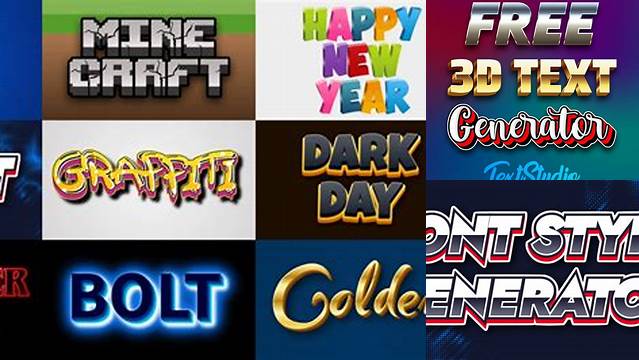
Free Logo Font Style Generator: Create Your Brand's Font
Creating a memorable and impactful logo is crucial for any brand. The font you choose plays a significant role in conveying your brand's personality and message. Fortunately, there are numerous free logo font style generators available online that can help you experiment with different typography options and find the perfect font for your logo. In this article, we will explore the world of logo font style generators, discuss their benefits, and guide you on how to use them effectively to create a stunning logo. So, let's dive in and discover how you can craft a unique visual identity for your brand using these amazing tools!
Understanding the Importance of Font Choice in Logo Design
Choosing the right font is absolutely critical when you're crafting a logo because it's way more than just picking something that looks cool, guys. Think of your logo as the face of your brand – it's often the first thing people see and the impression it makes can stick for a long time. The font you select is a major part of that first impression. Different fonts can evoke totally different feelings and associations. A bold, sturdy font can suggest strength and reliability, while a sleek, modern font might give off a vibe of innovation and sophistication. A playful, handwritten font can make your brand seem approachable and friendly. The font needs to align with your brand's personality, values, and the overall message you're trying to send.
Imagine, for instance, a financial firm using a whimsical, cartoonish font – it just wouldn't inspire confidence, would it? Or a children's toy brand using a stern, formal font? It just doesn't fit! When you're picking a font, consider your target audience, the industry you're in, and the kind of image you want to project. It's about creating a visual language that speaks directly to your audience and sets you apart from the competition. Beyond aesthetics, readability is another huge factor. Your logo might look amazing, but if people can't easily read your brand name, it's not doing its job. You need a font that's clear and legible, even at smaller sizes. Think about where your logo will be used – on your website, business cards, social media, merchandise – and make sure your font works well across all those platforms. A logo with a thoughtfully chosen font isn't just visually appealing; it's a powerful tool for building brand recognition and loyalty. It's about making a statement and ensuring that your brand's message resonates with the right people.
Benefits of Using a Logo Font Style Generator
Logo font style generators offer a fantastic array of benefits, especially if you're just starting out or working on a tight budget, guys. One of the biggest advantages is the sheer variety they provide. These generators typically have vast libraries of fonts, ranging from classic and timeless to modern and quirky. This means you can experiment with a ton of different styles and see how they look with your brand name, without having to spend hours searching individual fonts online. It's a huge time-saver!
Another major plus is the ease of use. You don't need to be a graphic design guru to use these tools. Most generators have user-friendly interfaces that allow you to simply type in your brand name, browse through the font options, and see your logo come to life in real-time. You can often adjust things like font size, color, and spacing, giving you a lot of control over the final look. For startups and small businesses, budget is always a concern. Hiring a professional designer can be expensive, and a logo font style generator offers a cost-effective alternative. Many generators have free options or very affordable subscription plans, allowing you to create a professional-looking logo without breaking the bank. This can be a game-changer when you're trying to get your business off the ground. Beyond the cost savings, these generators are excellent for brainstorming and getting creative.
You can try out different combinations of fonts and styles that you might not have thought of otherwise. It's a great way to spark inspiration and explore different directions for your brand identity. Some generators even offer customization options, such as adding design elements or adjusting the kerning (the space between letters) to fine-tune your logo. This level of control can help you create a logo that's truly unique and reflective of your brand. Ultimately, logo font style generators empower you to take control of your brand's visual identity. They provide the tools and resources you need to create a logo that stands out and makes a lasting impression. Whether you're a seasoned designer or a complete beginner, these generators can be a valuable asset in your branding journey. They make the process more accessible, efficient, and fun, helping you to craft a logo that perfectly represents your brand. So, why not give one a try and see what you can create?
Popular Free Logo Font Style Generators
Finding the right logo font style generator can be a bit overwhelming with so many options out there, but don't worry, guys, I've got you covered! There are some fantastic free options available that can help you create a killer logo without spending a dime. Let's dive into a few popular choices and what makes them stand out. First up, we have Canva. Canva is a design platform that's super user-friendly and packed with features. It's not just a logo maker; it's a comprehensive tool for all sorts of design needs. But its logo generator is particularly impressive. It offers a huge selection of fonts, templates, and graphics that you can easily customize to match your brand. You can drag and drop elements, change colors, and experiment with different layouts until you find the perfect look. The free version of Canva is surprisingly robust, offering plenty of resources to get you started. If you need even more features, like premium fonts and graphics, they also have affordable subscription plans.
Next, let's talk about LogoMakr. This generator is specifically designed for logo creation, so it's laser-focused on helping you build a strong brand identity. LogoMakr has a clean and intuitive interface that makes it easy to navigate, even if you're a complete beginner. It boasts a large library of fonts and graphics, and you can even upload your own images to incorporate into your design. One of the cool features of LogoMakr is its ability to create different versions of your logo for various uses, such as website headers or social media profiles. This ensures that your logo looks great across all platforms. Another popular option is DesignEvo. DesignEvo is known for its simplicity and extensive library of over 10,000 templates. You can browse through the templates by category or keyword, making it easy to find a design that aligns with your brand. DesignEvo also offers a wide range of fonts and icons, allowing you to customize your logo to your heart's content.
What's great about DesignEvo is that it provides high-resolution downloads, which is crucial for ensuring your logo looks crisp and clear in both print and digital formats. Then there's Ucraft, which is a website builder that also has a free logo maker tool. Ucraft's logo maker is incredibly easy to use, with a drag-and-drop interface and a wide selection of fonts, icons, and shapes. You can create a simple yet effective logo in just a few minutes. Because Ucraft is primarily a website builder, using its logo maker can be a great first step if you're also planning to create a website for your business. These are just a few of the many free logo font style generators available. Each one has its own strengths and features, so it's worth exploring a few different options to see which one best fits your needs. The key is to have fun experimenting with different fonts and styles until you create a logo that truly represents your brand. Remember, your logo is the face of your business, so make sure it's a good one!
How to Use a Logo Font Style Generator Effectively
Using a logo font style generator effectively is all about maximizing its potential while keeping your brand's identity in mind, guys. It's not just about picking the first font that looks cool; it's about crafting a logo that resonates with your target audience and represents your brand values. So, let's break down the key steps to using these tools like a pro. First and foremost, you need to have a clear understanding of your brand. What is your brand's personality? Are you modern and edgy, or classic and sophisticated? What kind of message do you want to convey? Knowing your brand inside and out will help you make informed decisions about font choices and overall design. Before you even open a font style generator, take some time to brainstorm your brand's identity. Think about your target audience, your industry, and your competitors. What fonts and styles are common in your industry? How can you differentiate yourself? What colors align with your brand's message? Answering these questions will give you a solid foundation to work from.
In conclusion, logo font style generators are invaluable tools for businesses of all sizes, guys. They offer a cost-effective and efficient way to experiment with different typography options and create a logo that truly represents your brand. By understanding the importance of font choice, exploring the benefits of these generators, and following the tips outlined in this article, you can craft a stunning visual identity that resonates with your target audience. So, go ahead and unleash your creativity – your perfect logo is just a few clicks away!